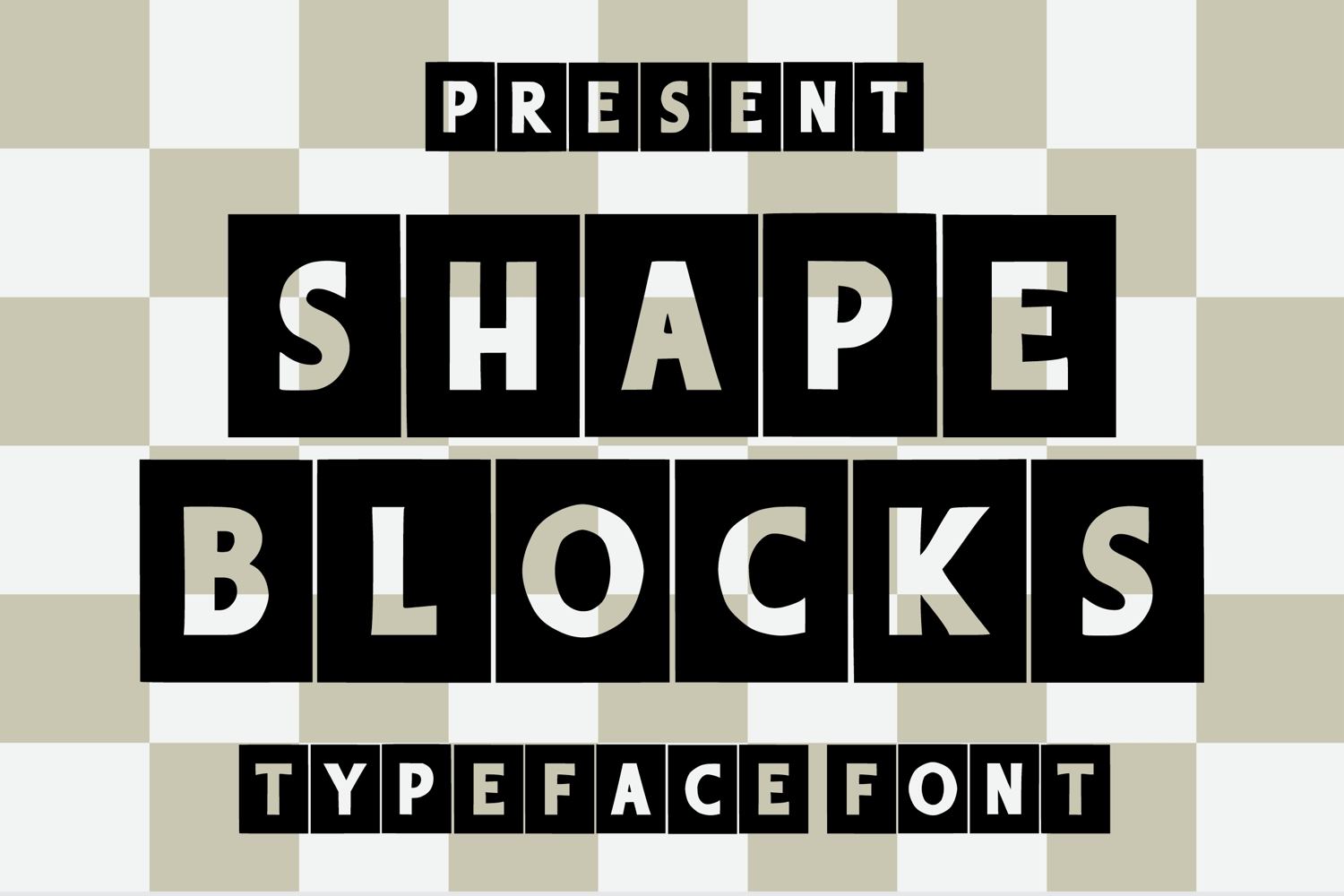
Shape Blocks
Shape Blocks is an authentic, bold, and block display deco font, inspired by college typography.
This bold and dynamic font captures the energy and excitement of sports. It features a strong and commanding look, with thick lines and sharp edges that convey power and athleticism.